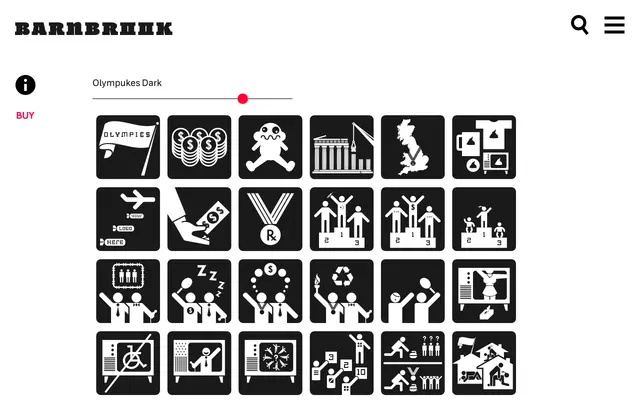
Olympukes
A set of satirical pictograms skewering the corruption and contradictions of the modern Olympic Games, conceived as a counterpoint to the anodyne official iconography.
Born from Barnbrook's frustration with the sanitised symbolism of Olympic pictogram design, Olympukes reframes the sporting icons to acknowledge the greed, manipulation and skulduggery that characterise the modern Games. The name fuses 'olympics' and 'puke' as a blunt statement of intent. It sits firmly in the tradition of politically engaged graphic design, using the designer's own toolkit against the spectacle it normally serves.
A set of satirical pictograms rather than a conventional typeface; categorised as display due to its purely graphic, non-alphabetic character set intended for visual communication.